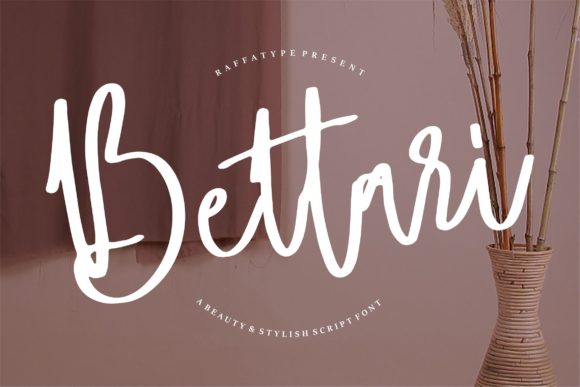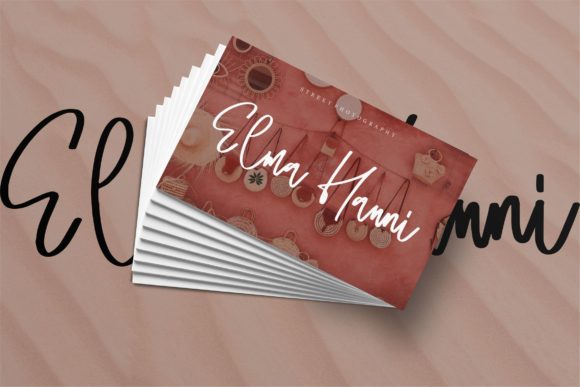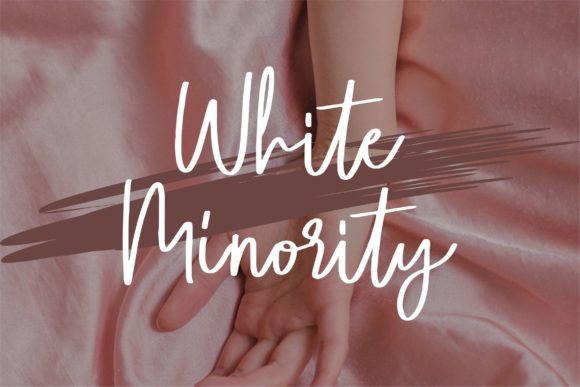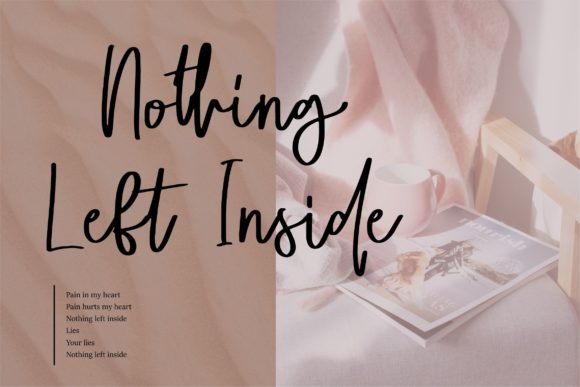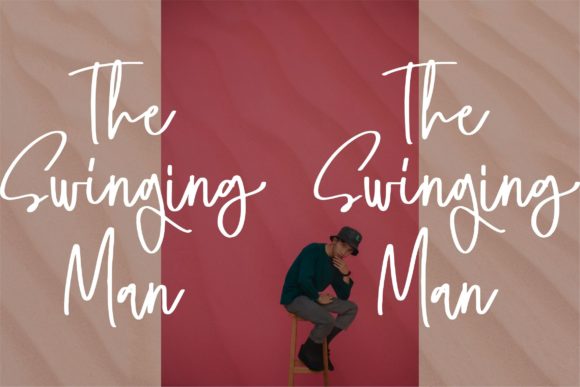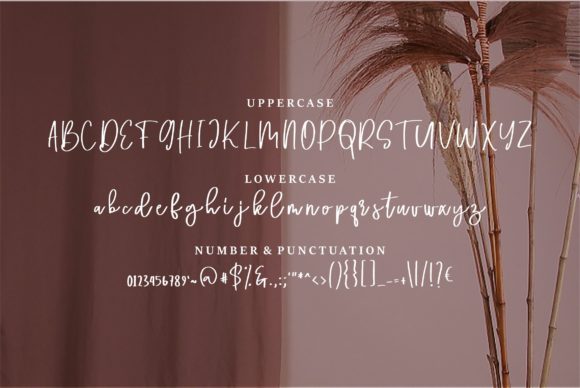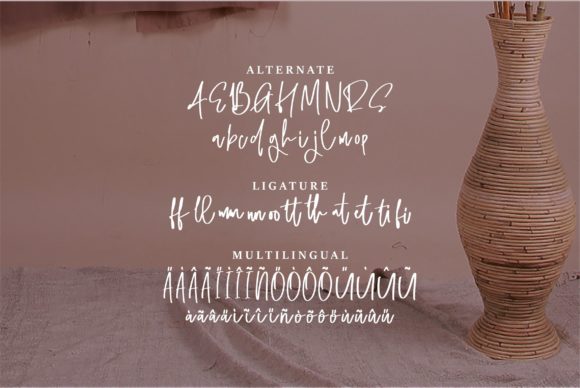
Bettari
About Bettari Font
Bettari is a relaxed and stylish handwritten font. This font is perfect for complementing a variety of designs that require a charming touch. Fall in love with its incredibly versatile style and use it to create spectacular designs!